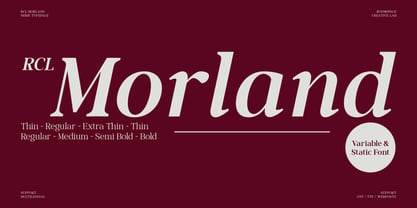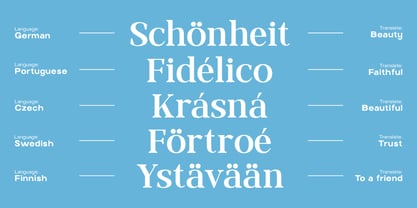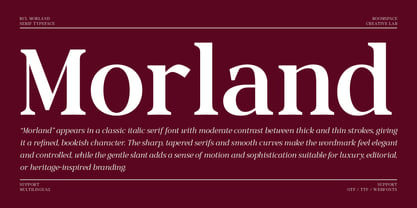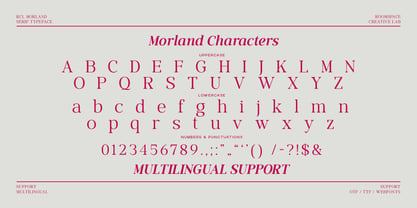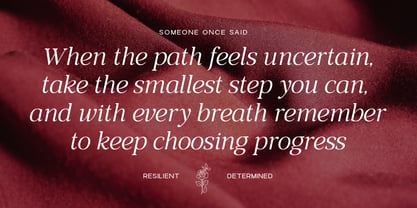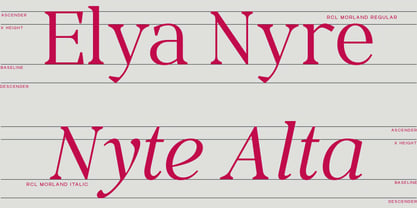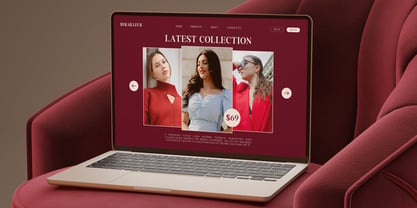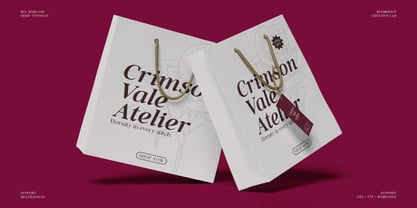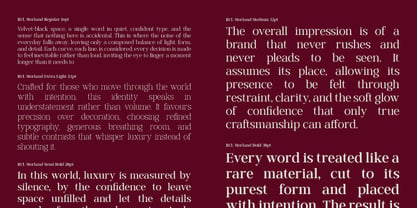
RCL Morland
by Jafar07
The RCL Morland Font Family was designed by Bakhrudin Ja'far and published by Jafar07. RCL Morland contains 14 styles and family package options. More about this family
A timeless serif font made for editorial design, branding, and refined visual storytelling. Meet Morland a modern serif typeface designed to elevate your designs with elegance and clarity. Combining classic serif character with contemporary balance, Morland brings sophistication to editorial layouts, branding systems, and luxury projects. Its clean structure and versatile weights make Morland an ideal choice for designers seeking a timeless yet modern aesthetic. Font Features: Multiple font weights Modern serif construction Uppercase & lowercase Multilingual support PUA encoded Perfect For : Brand identities, magazines, fashion design, packaging, websites, posters, social media, and editorials.
Designers: Bakhrudin Ja'far
Foundry: Jafar07
RCL Morland